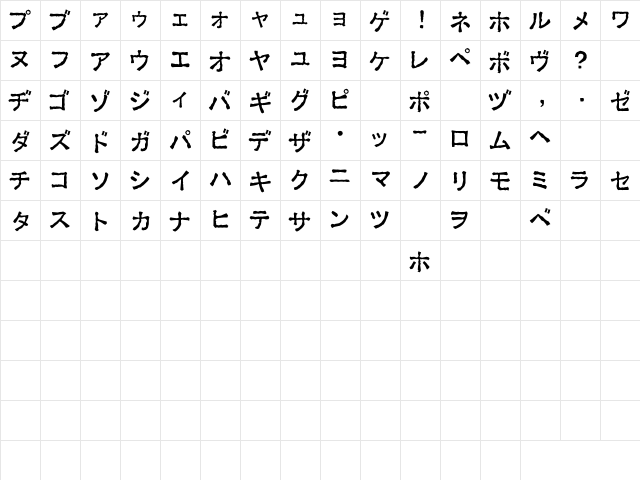
Ex Kata Opaque Regular Font Preview
Ex Kata Opaque Regular
Ex Kata Opaque Regular Font Details
Design Context for Ex Kata Opaque Typeface
Ex Kata Opaque offers clean, dependable letterforms without strong stylistic allegiance, making it a practical choice for designers who need flexibility.